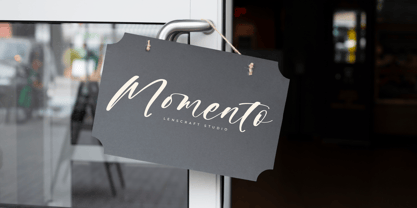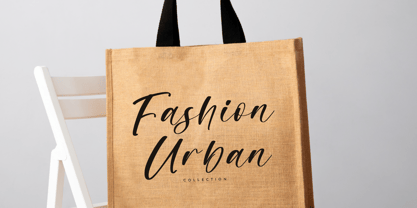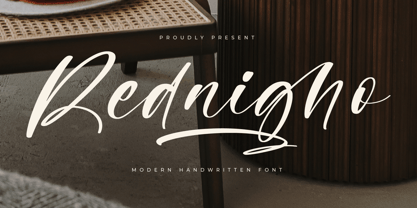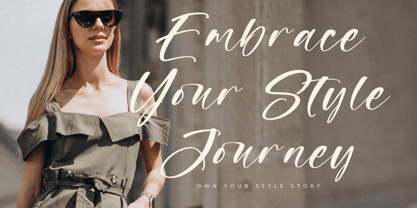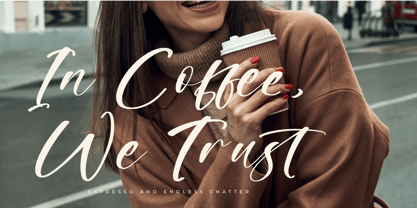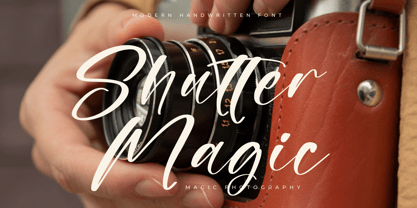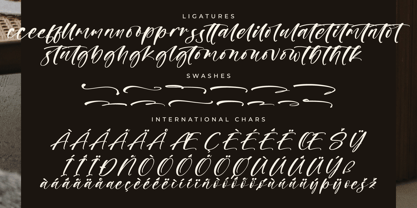
Rednigho
The Rednigho Font Family was designed by Heru Utama Putra and published by Letterena Studios. Rednigho contains 1 styles. More about this family
Rednigho is a stylish script font that embodies sophistication and grace. With its fluid, sweeping letterforms, this font exudes a timeless elegance and adds a touch of glamour to any project. Ideal for conveying luxury and refinement, this font elevates your designs with its captivating aesthetic.